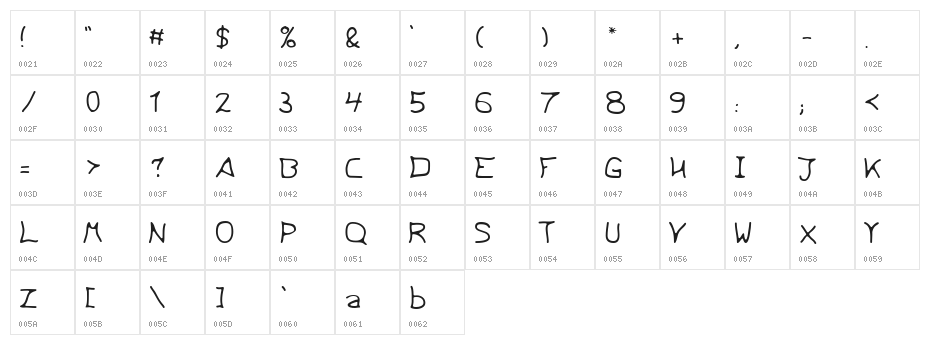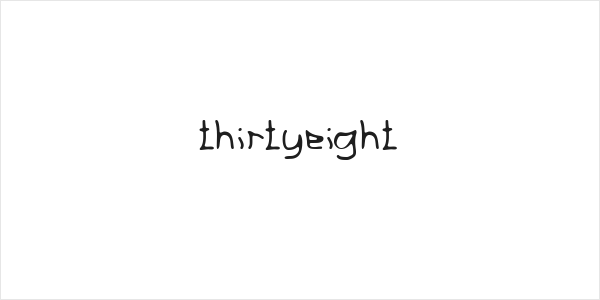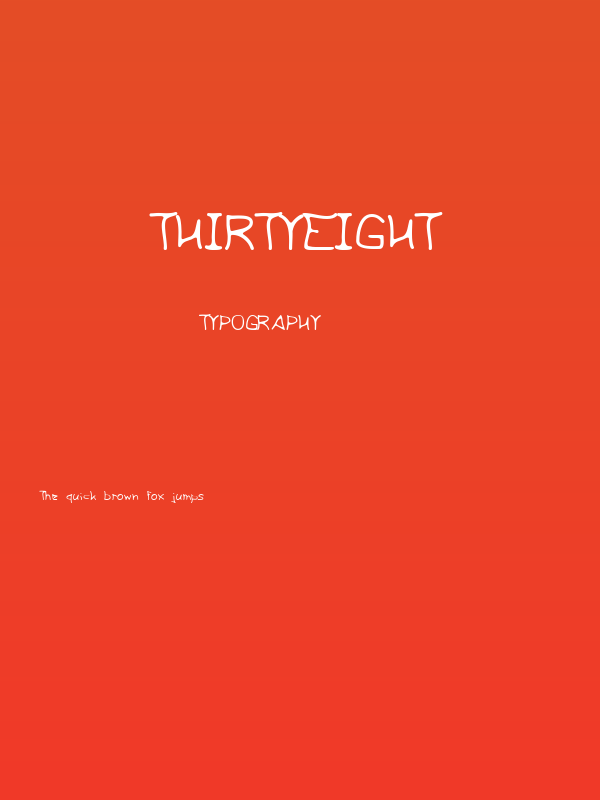
thirtyeight Font
This font features a playful and casual handwritten style, characterized by its irregular and slightly wavy lines. The letters have a natural flow, with varying stroke thickness that adds a dynamic and lively feel. The uppercase and lowercase letters maintain a consistent style, with rounded edges and a slightly uneven baseline, enhancing its informal appearance. The numerals and special characters are crafted with the same whimsical touch, making the font suitable for creative and informal projects.
Overall StyleCasual
Use CaseHeadlines, Informal text, Creative projects
Proposed ProjectsIdeal for children's books, greeting cards, casual invitations, and playful branding.